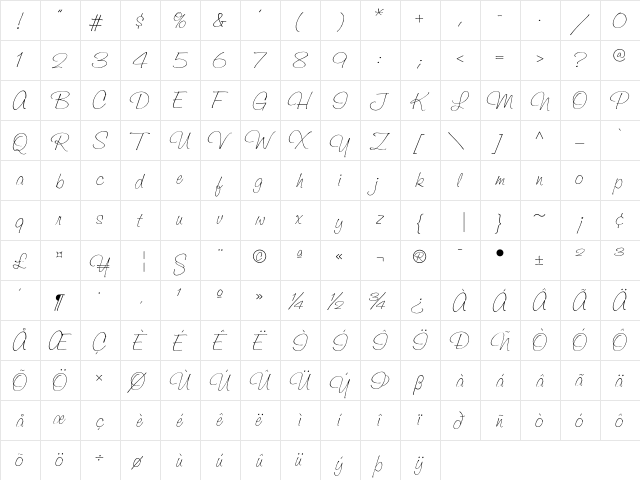
Laramie Pro Light
Design Context for Laramie Pro Typeface
Laramie Pro is a composed and adaptable typeface that performs quietly and consistently across a wide range of design contexts. Its slender proportions lend an understated elegance to any composition.
Pro Tip: Pair Laramie Pro with a font of contrasting weight or personality to build a more expressive typographic hierarchy.